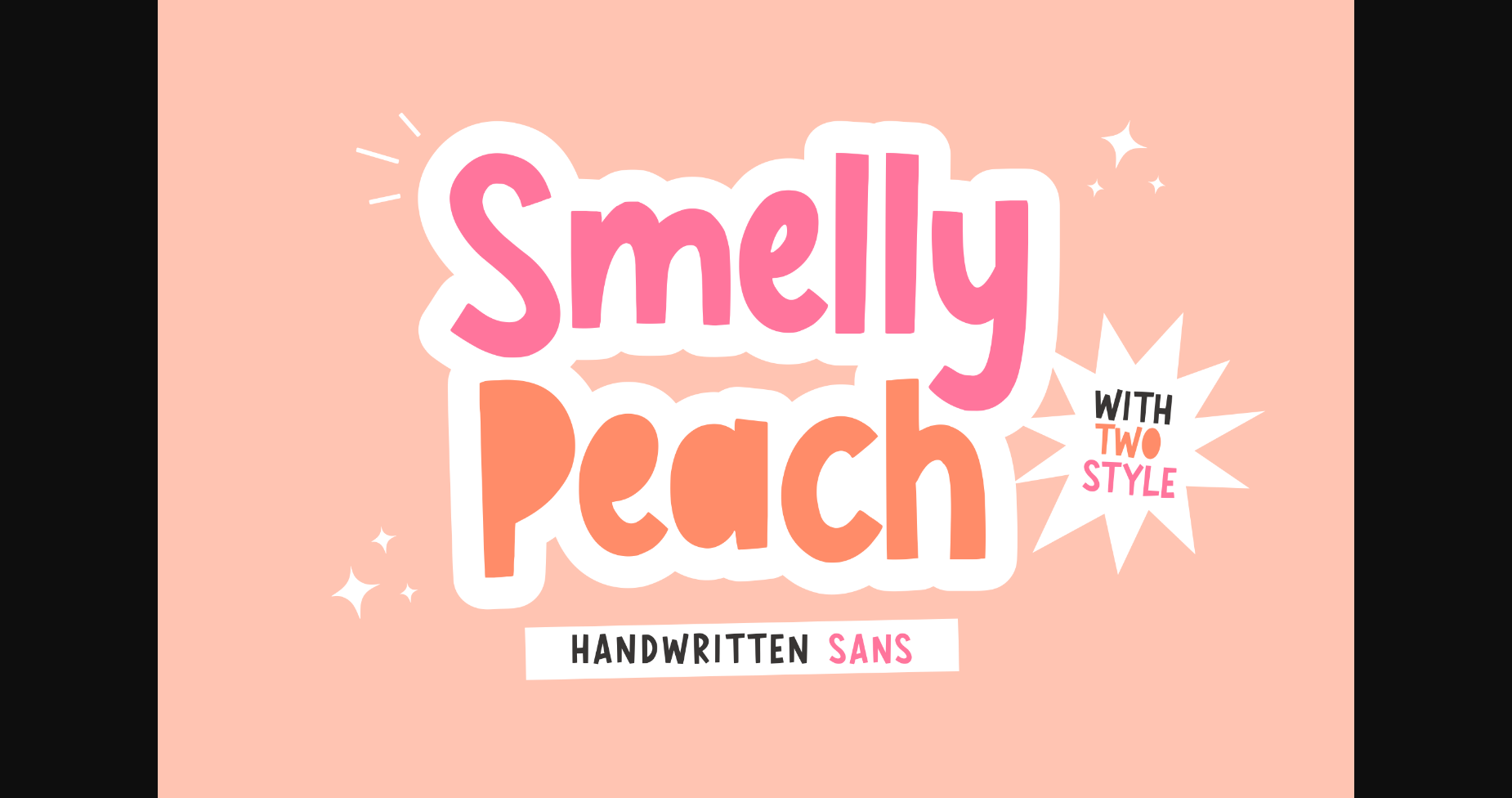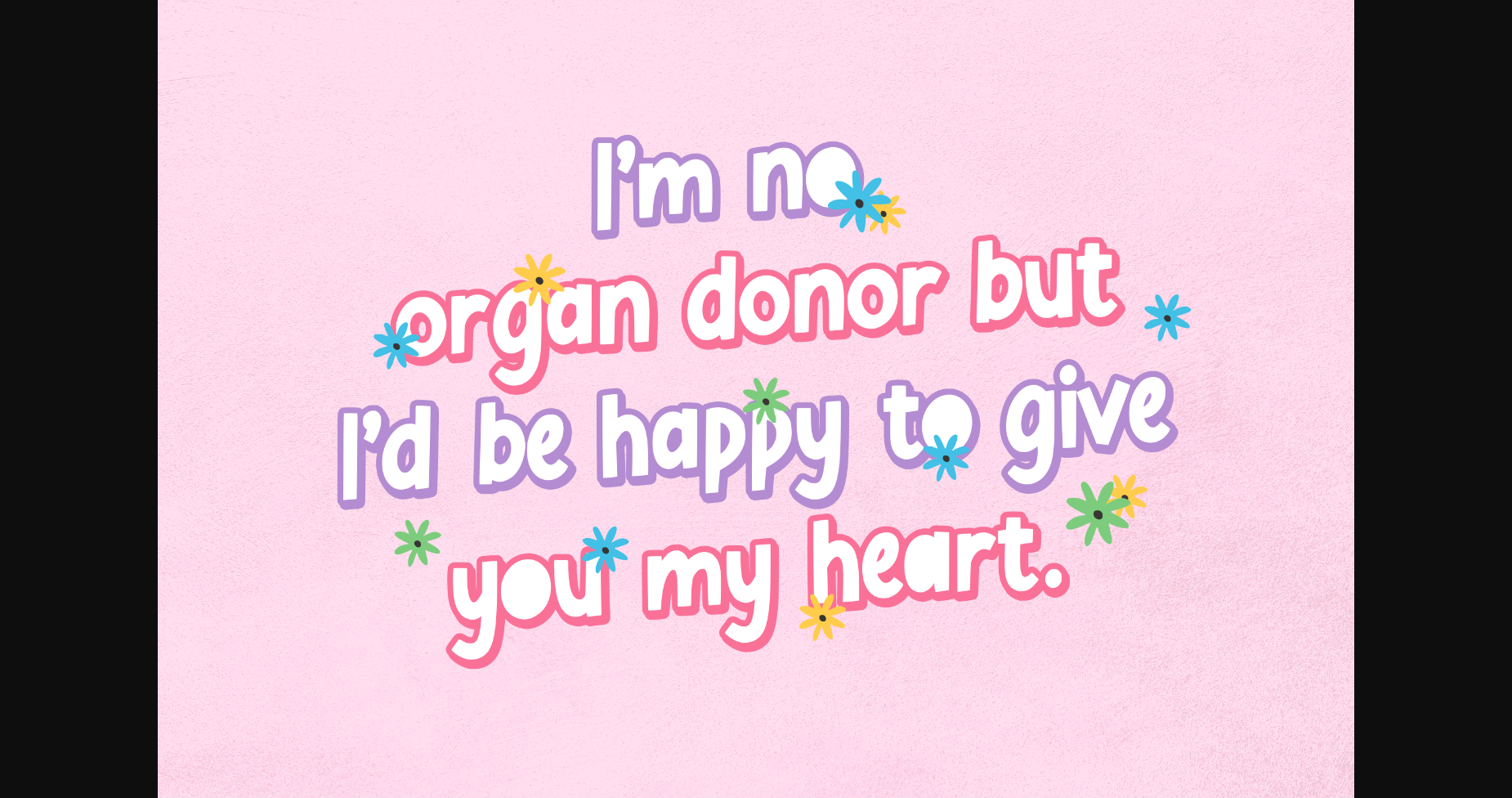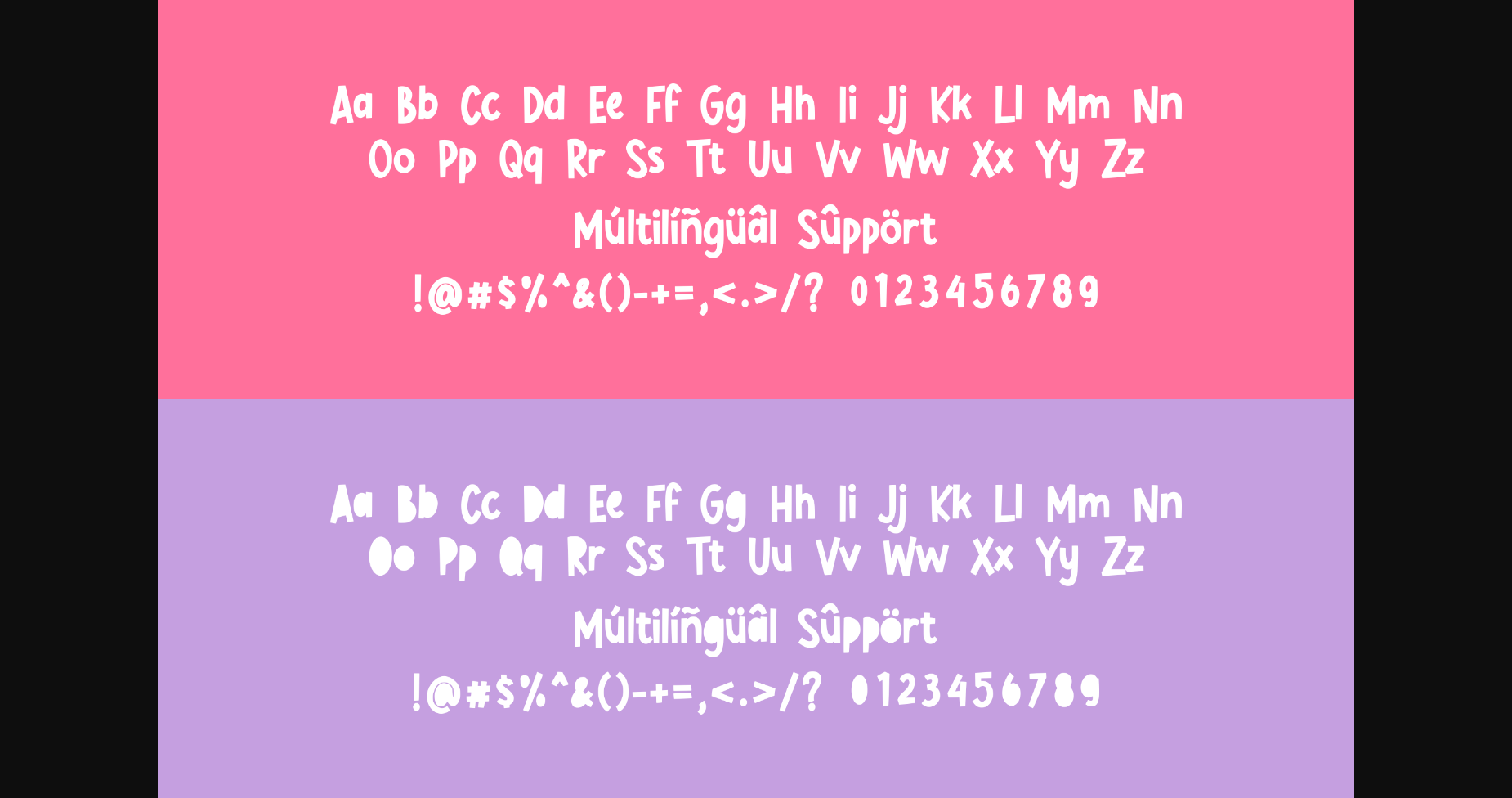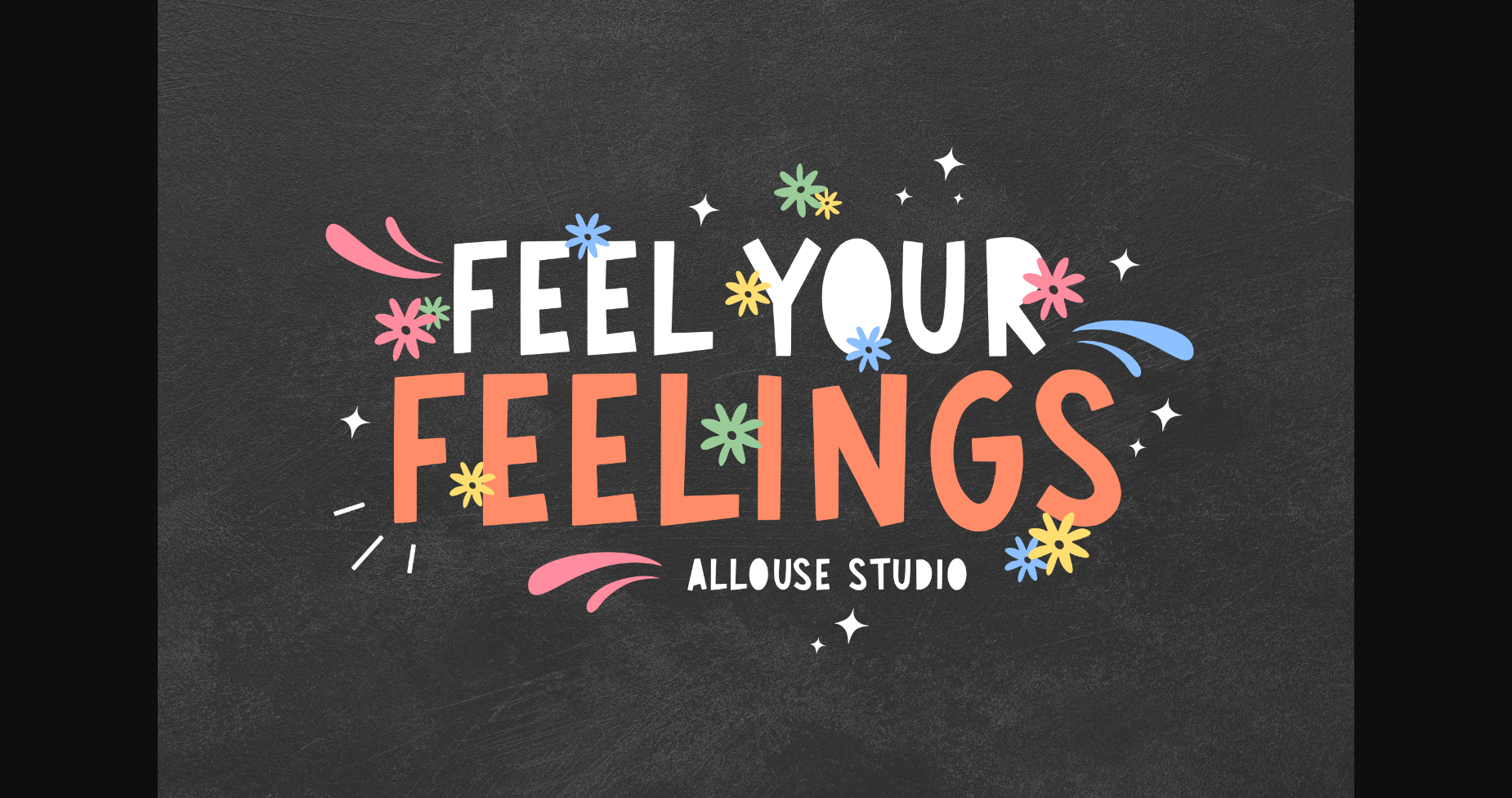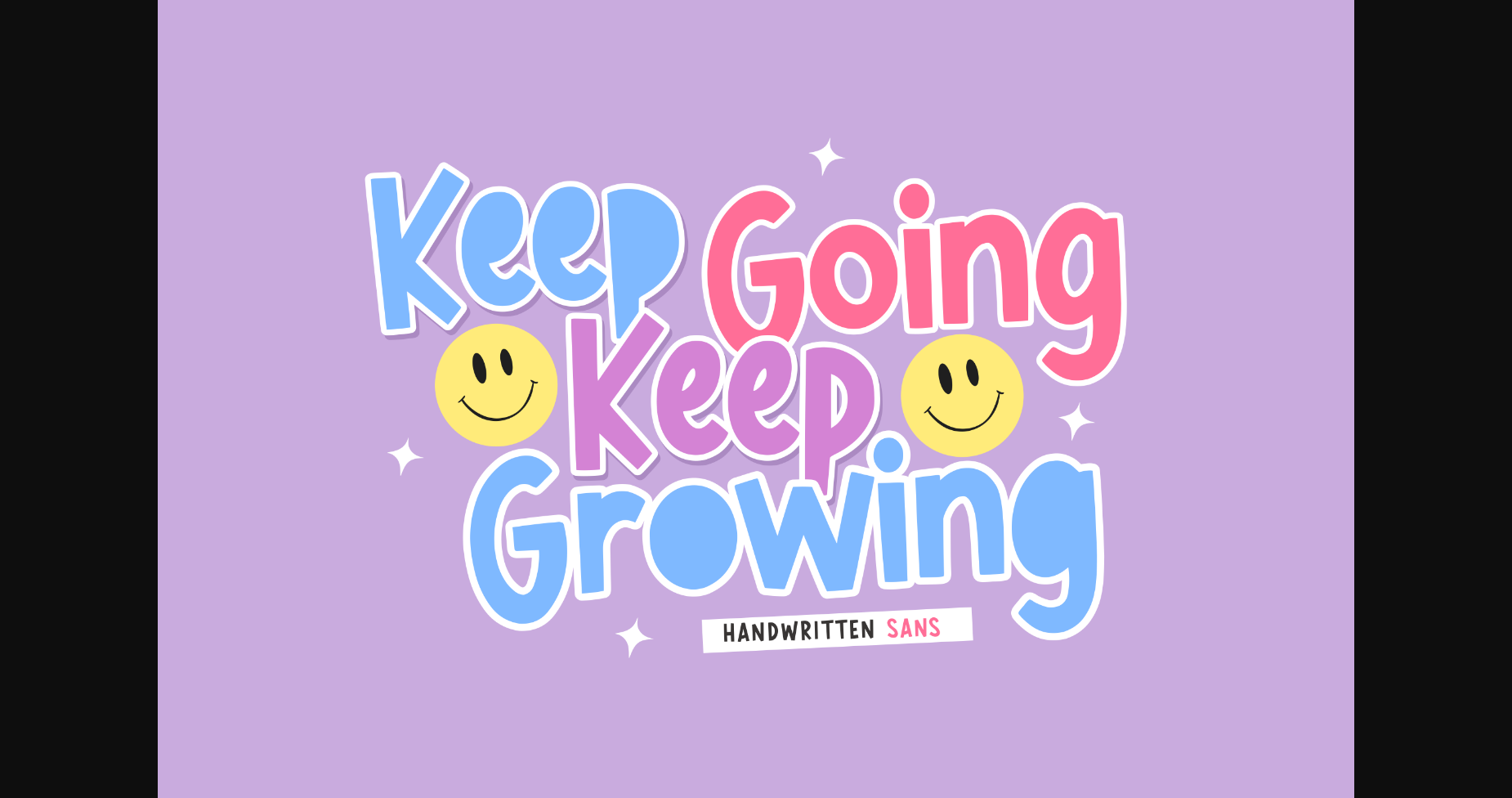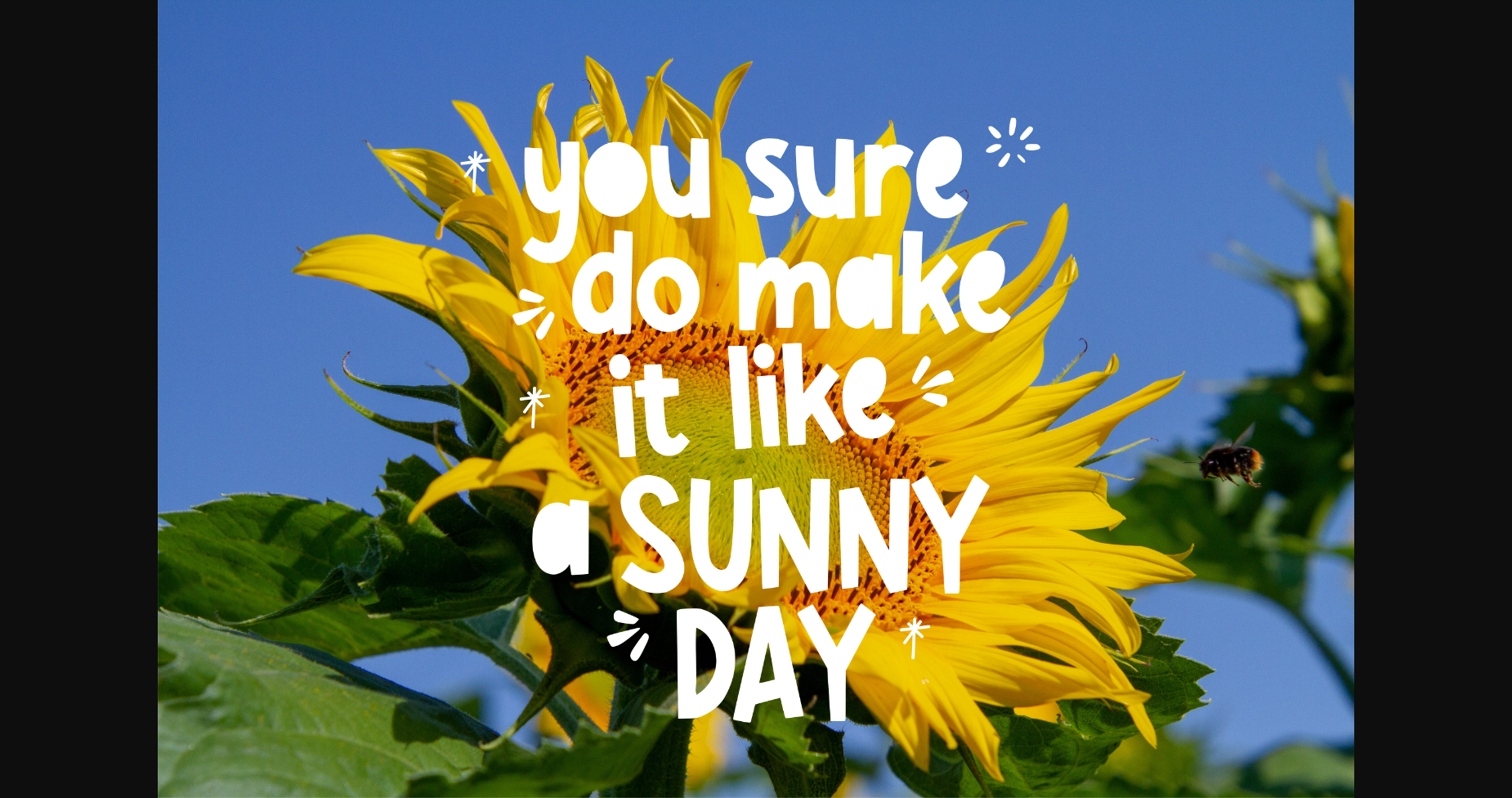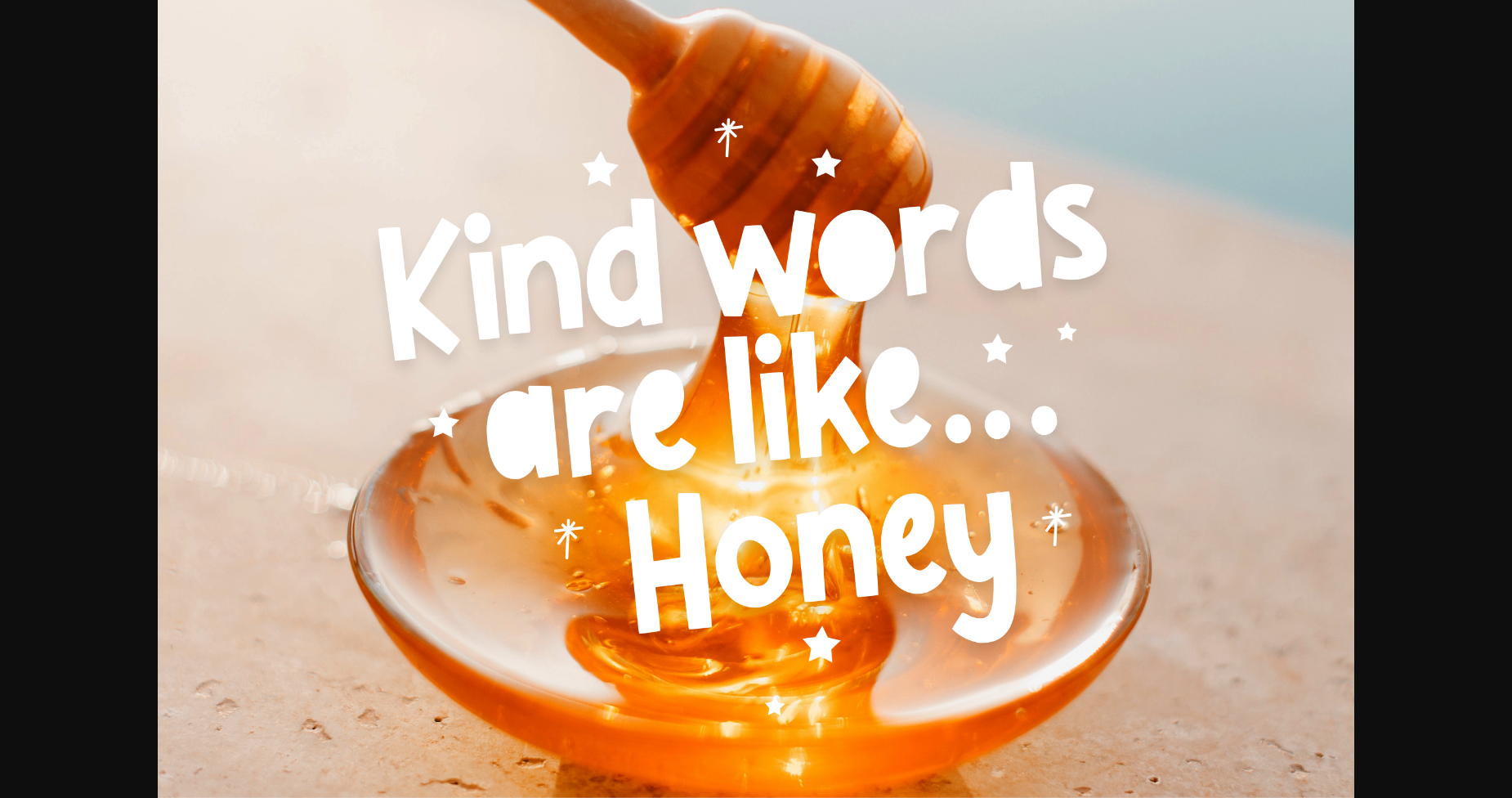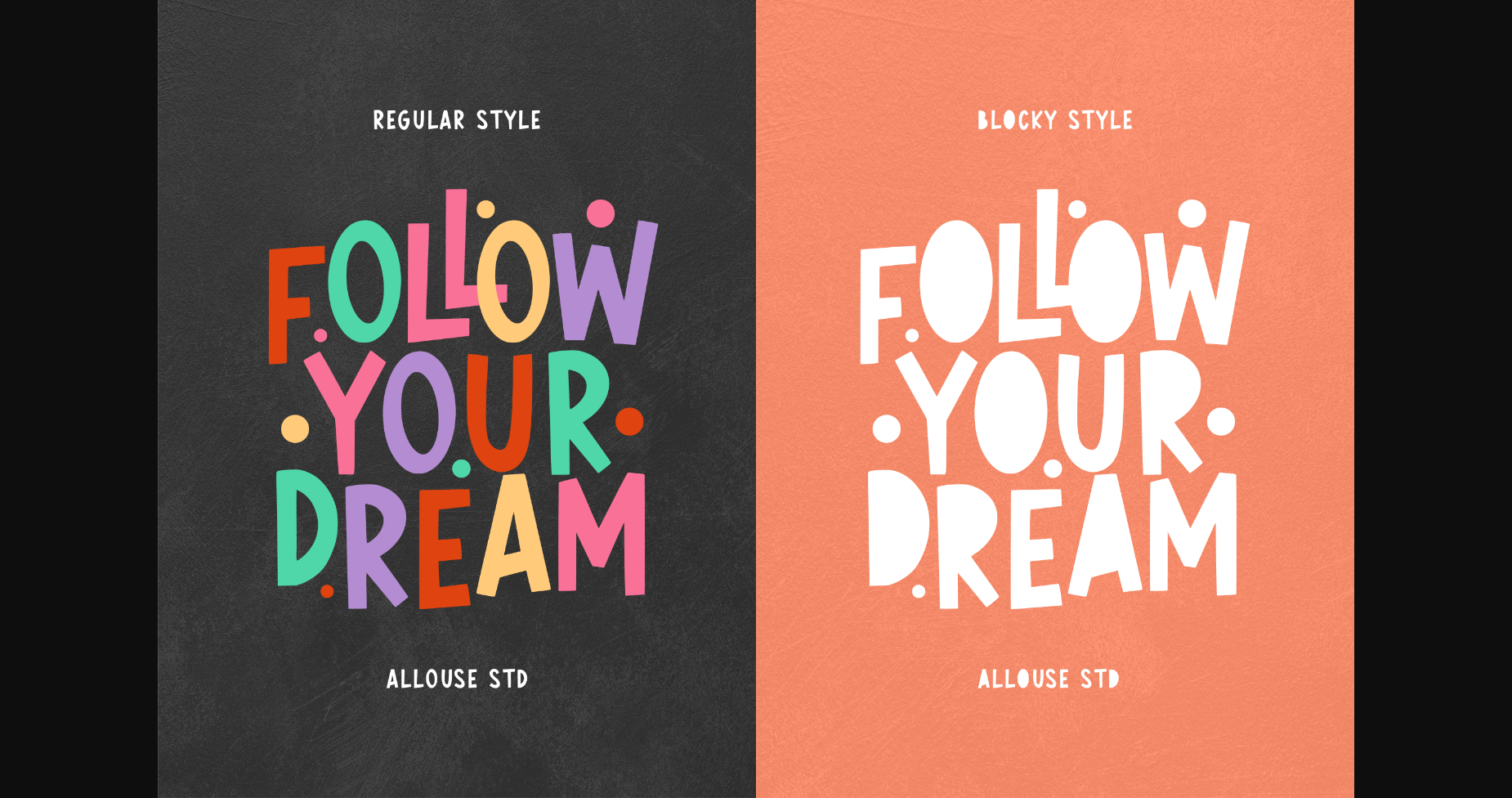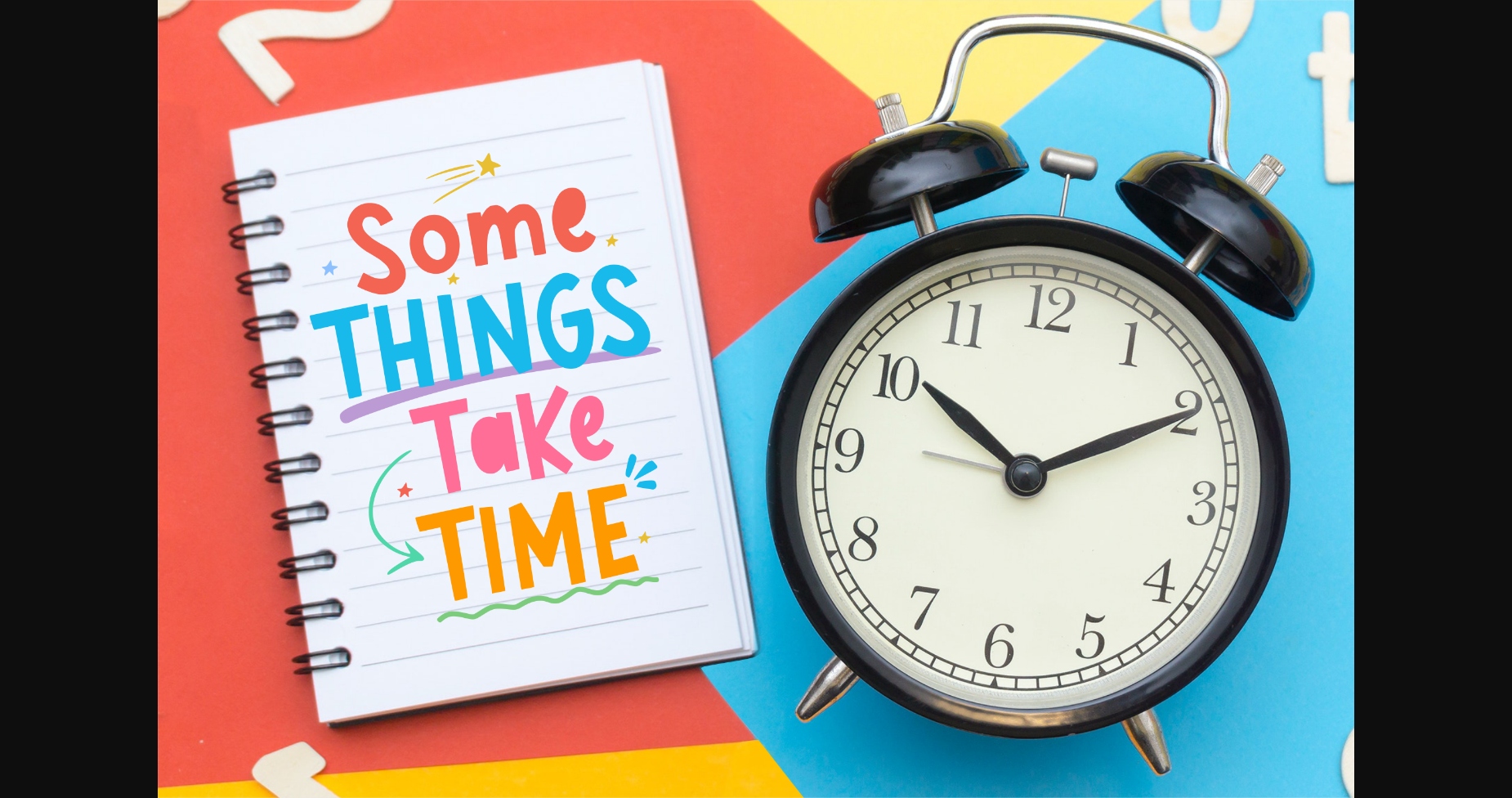
Smelly Peach Font
About Smelly Peach Font
Smelly Peach is a handmade sans serif font.
Smelly Peach is perfect for product packaging, branding projects, magazines, social media, weddings, or just used to express words above the background.